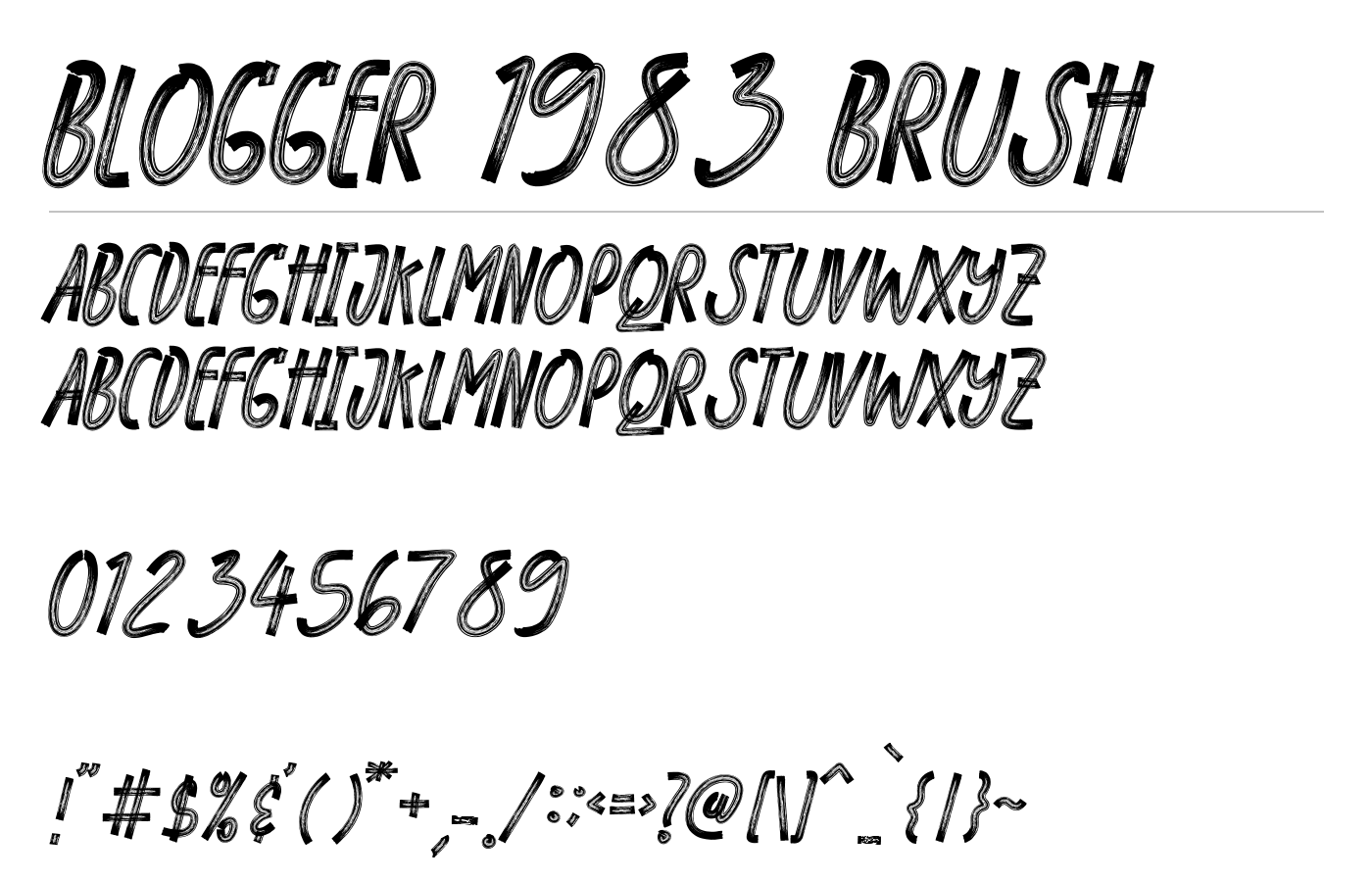
BLOGGER 1983 BRUSH is a lively, hand-drawn brush script font with a casual, energetic vibe. Its tall, slightly condensed letterforms feature expressive stroke textures that give a dynamic and artistic feel, perfect for creative and informal branding or headlines. This font works well for projects seeking a bold, spirited look with a personal touch, such as posters, logos, and social media graphics.
BLOGGER 1983 BRUSH Font
About BLOGGER 1983 BRUSH Font